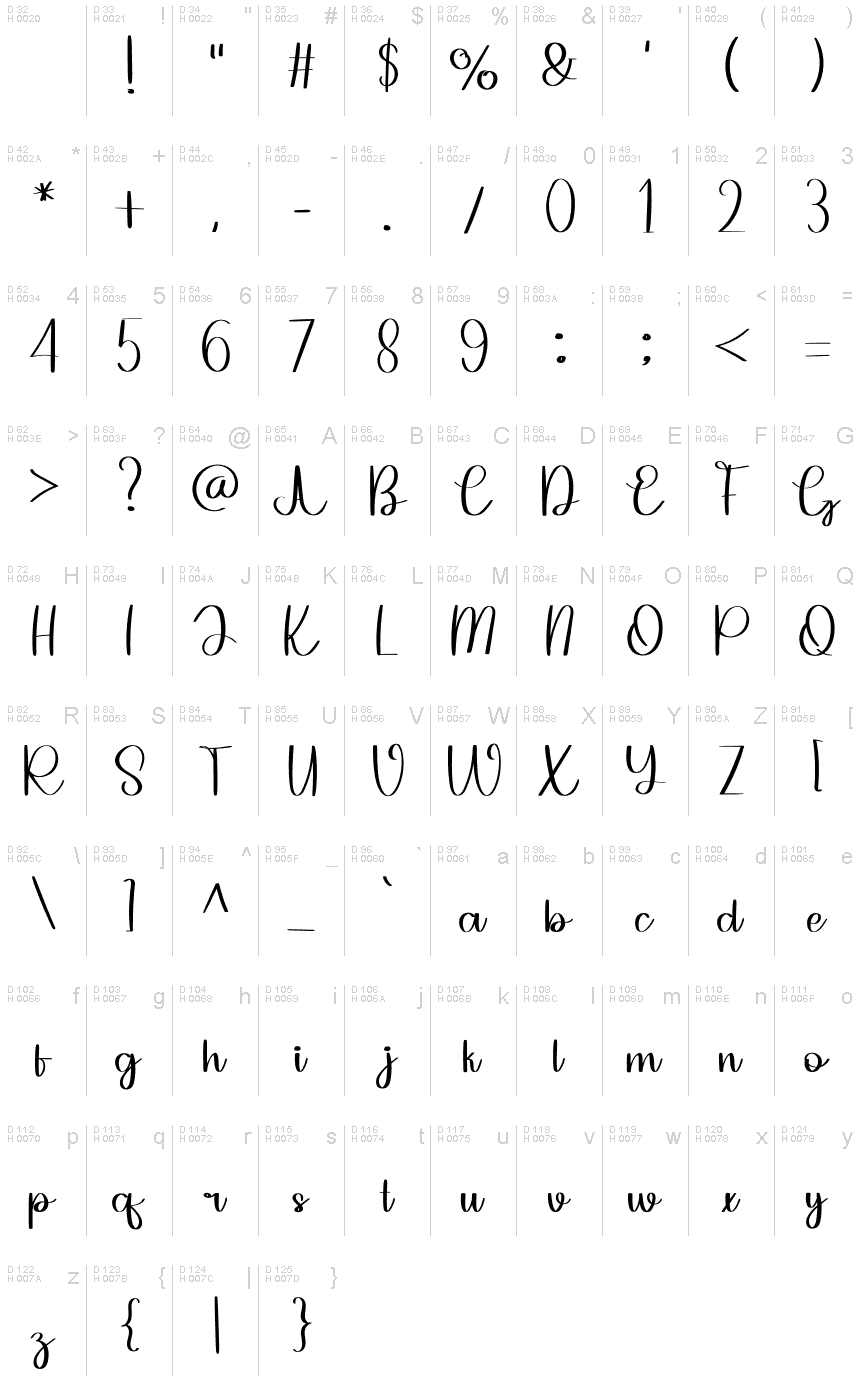
Mandala Wedding
Lend a touch of whimsy to your next project with Mandala Wedding, the newest handmade font by Belina Studio. This semi-light typeface features an elegant and flowing handwritten style that is perfect for adding a personal touch to invitations, thank you cards, and other wedding stationery. With its delicate flourishes and graceful curves, Mandala Wedding is also suitable for branding projects, logos, and social media graphics where a feminine or bohemian vibe is desired. Say "I do" to this charming and versatile font that will add a touch of romance to any design project.
the latest style letters are perfect for wall displays, wedding invitations, social media post logos, advertisements, product packaging, product designs, labels, photography, watermarks, invitations, stationery, and any project that requires taste handwriting.